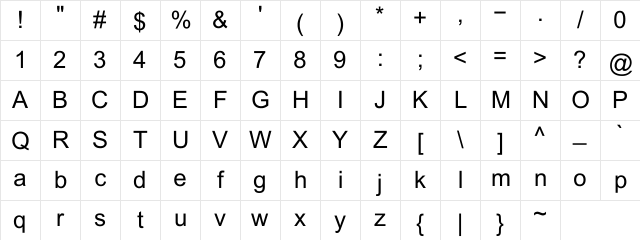
Design Context for _PDMS_Sukkur
_PDMS_Sukkur is a composed and adaptable typeface that performs quietly and consistently across a wide range of design contexts.
Pro Tip: Use _PDMS_Sukkur in both headline and body roles to test its range before committing to a single application.